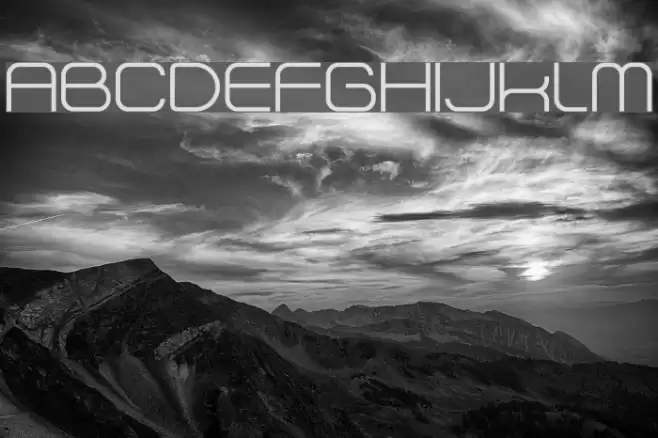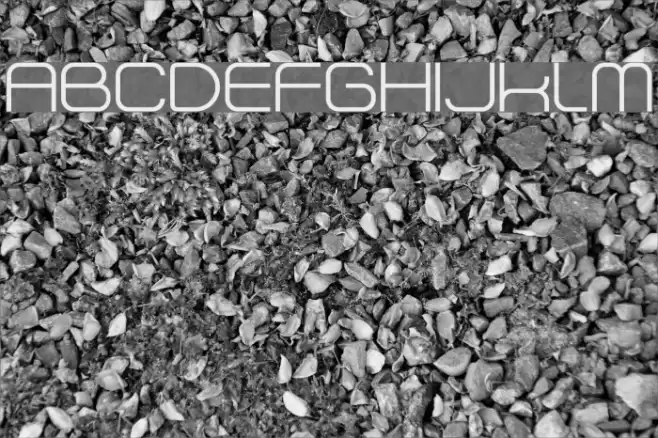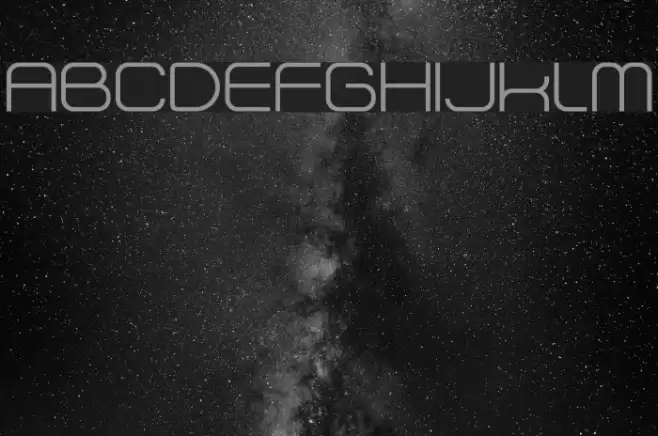
Dekers_light Font
Dekers_light Description
This font features a sleek, modern design with geometric influences. The characters are constructed with clean, straight lines and rounded edges, giving it a futuristic and minimalist appearance. The uppercase and lowercase letters maintain a consistent height, contributing to a uniform look. The numerals are designed with a similar aesthetic, ensuring readability and style. Special characters are crafted to match the overall design, making them suitable for various applications. The font's light weight and open structure make it ideal for projects that require a contemporary and airy feel.
A modern, geometric font with clean lines and rounded edges from Uncategorized fonts.
- Proposed Projects: Ideal for tech branding, modern web design, minimalist posters, and futuristic interfaces.
- Use Case: Headlines, Logos, User Interfaces